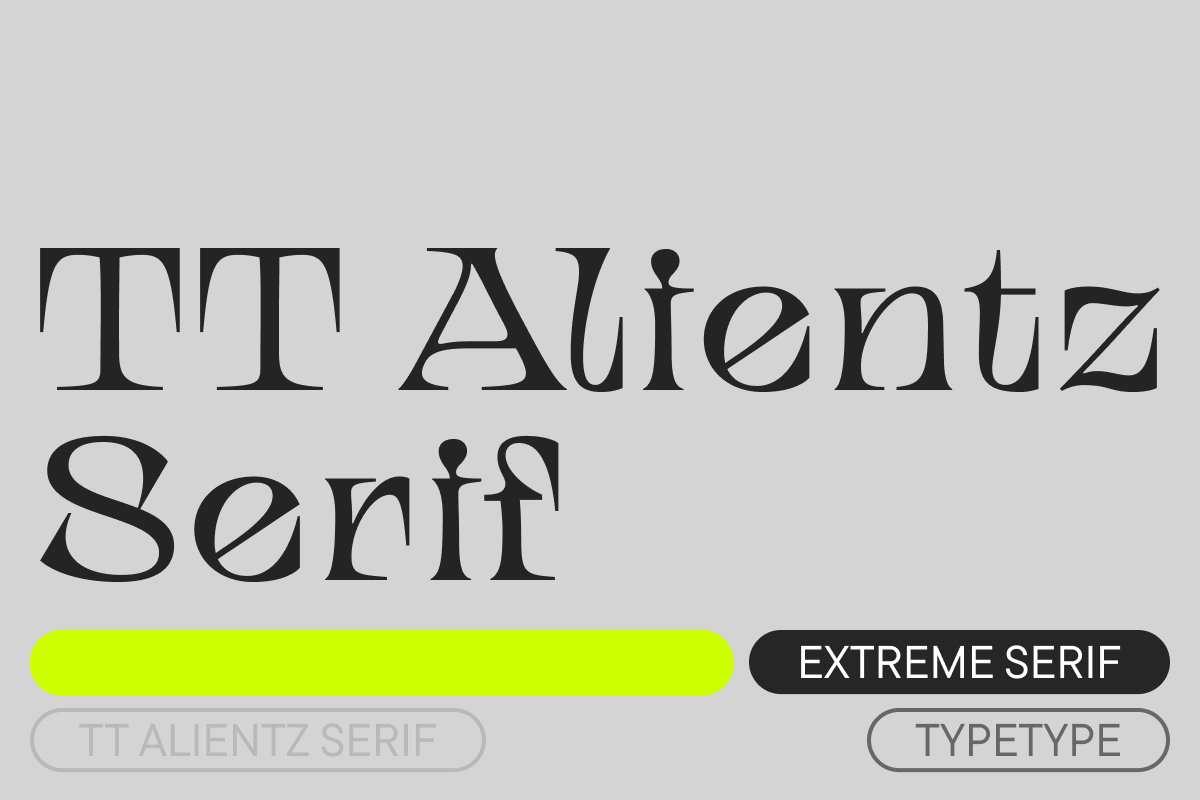
TT Alientz Serif
TT Alientz is a variable typeface that allows the user to make a visual journey from a laconic extraterrestrial grotesque to a very prickly display serif. As part of this project, we decided to investigate the influence of a foreign substance and the consequent transformation of the original forms, which ultimately leads to extreme visual changes. The TT Alientz family consists of 3 fonts: grotesque, serif and variable font. Each font contains more than 470 glyphs.